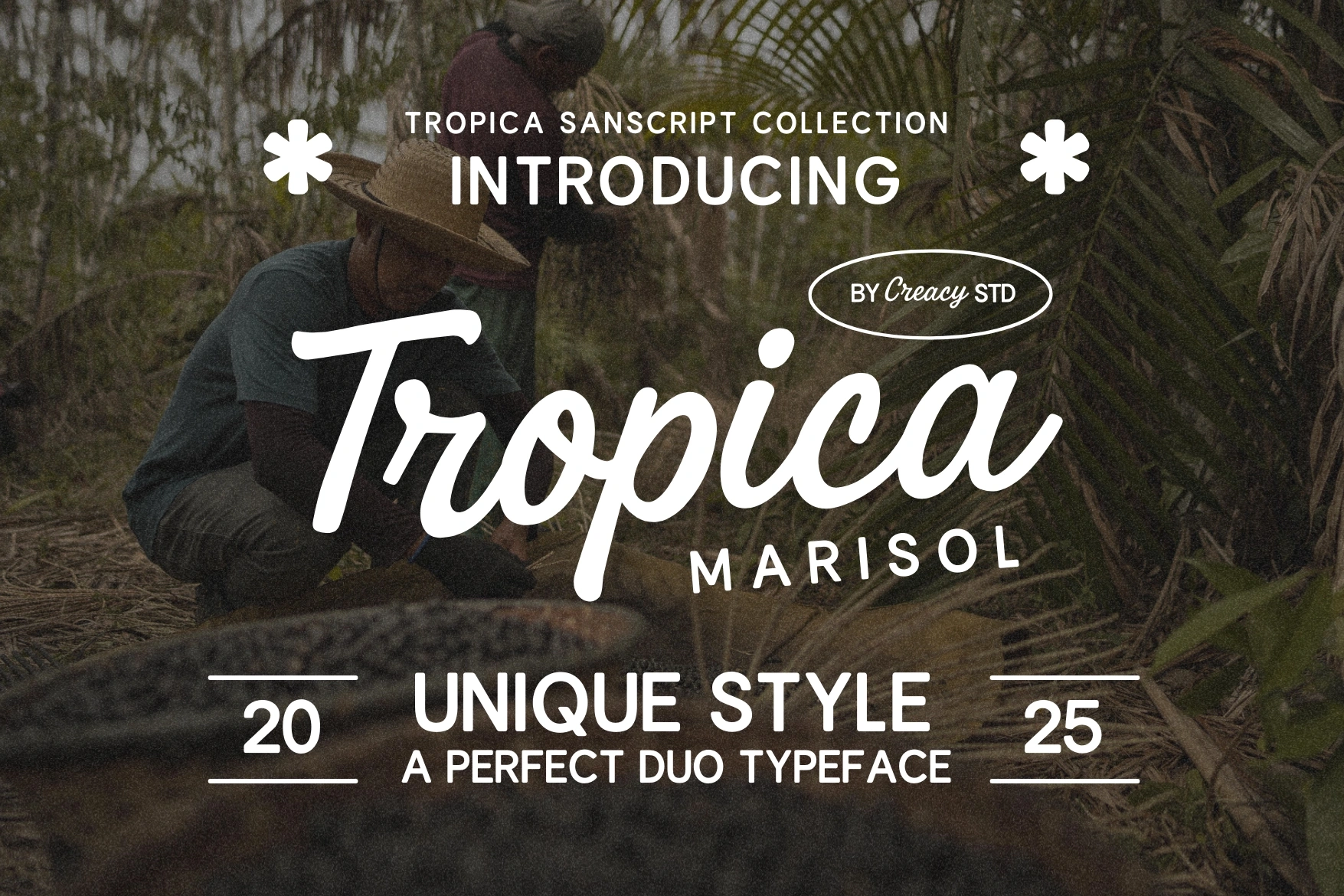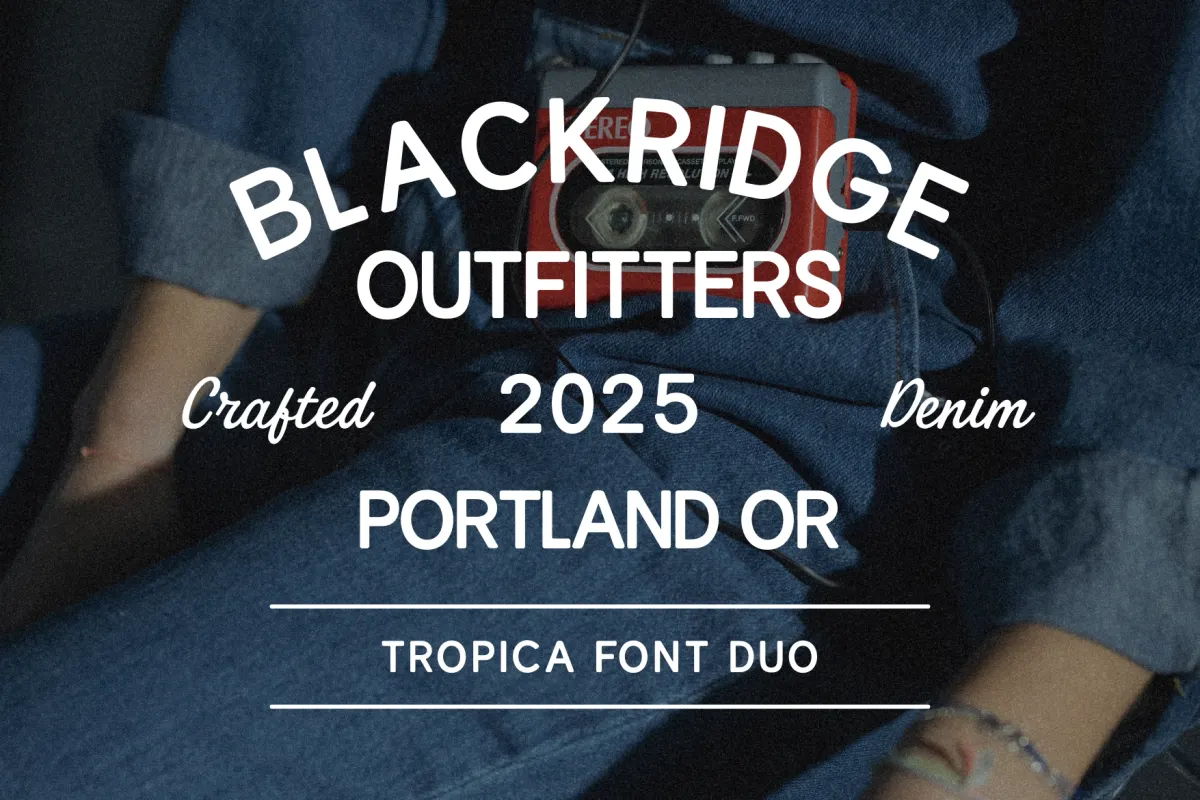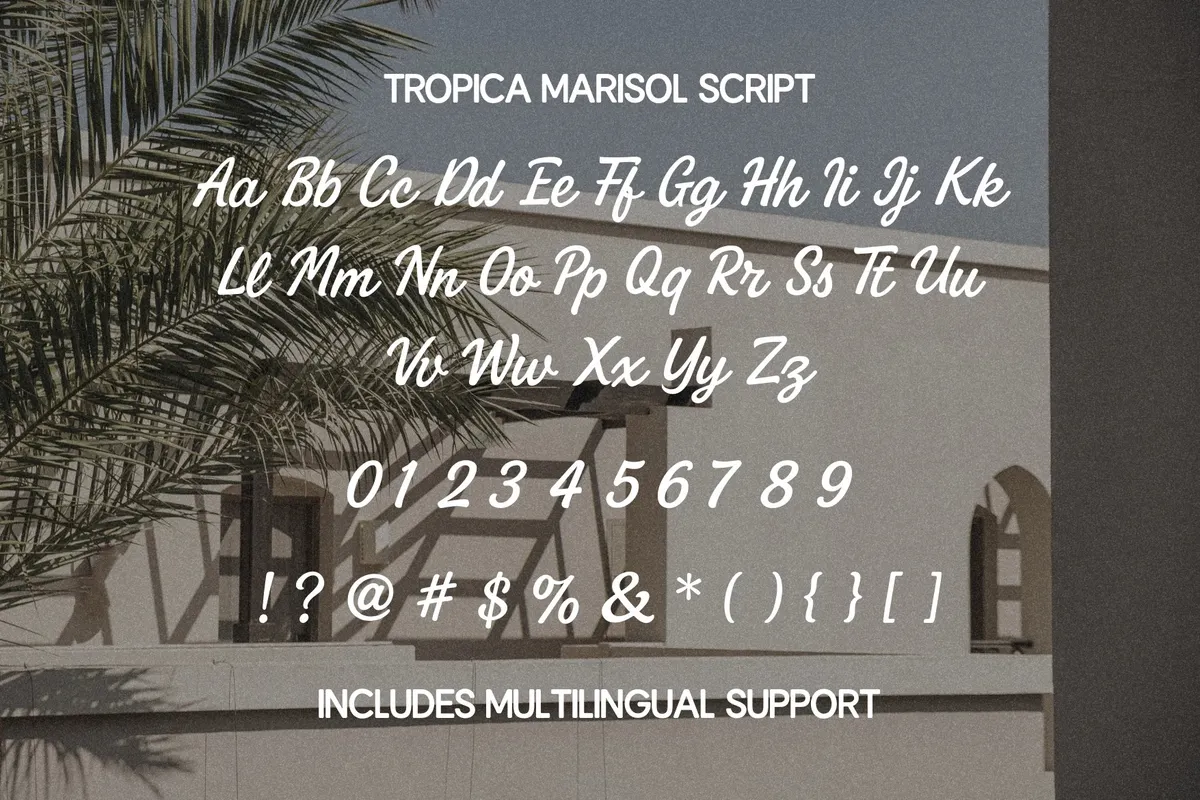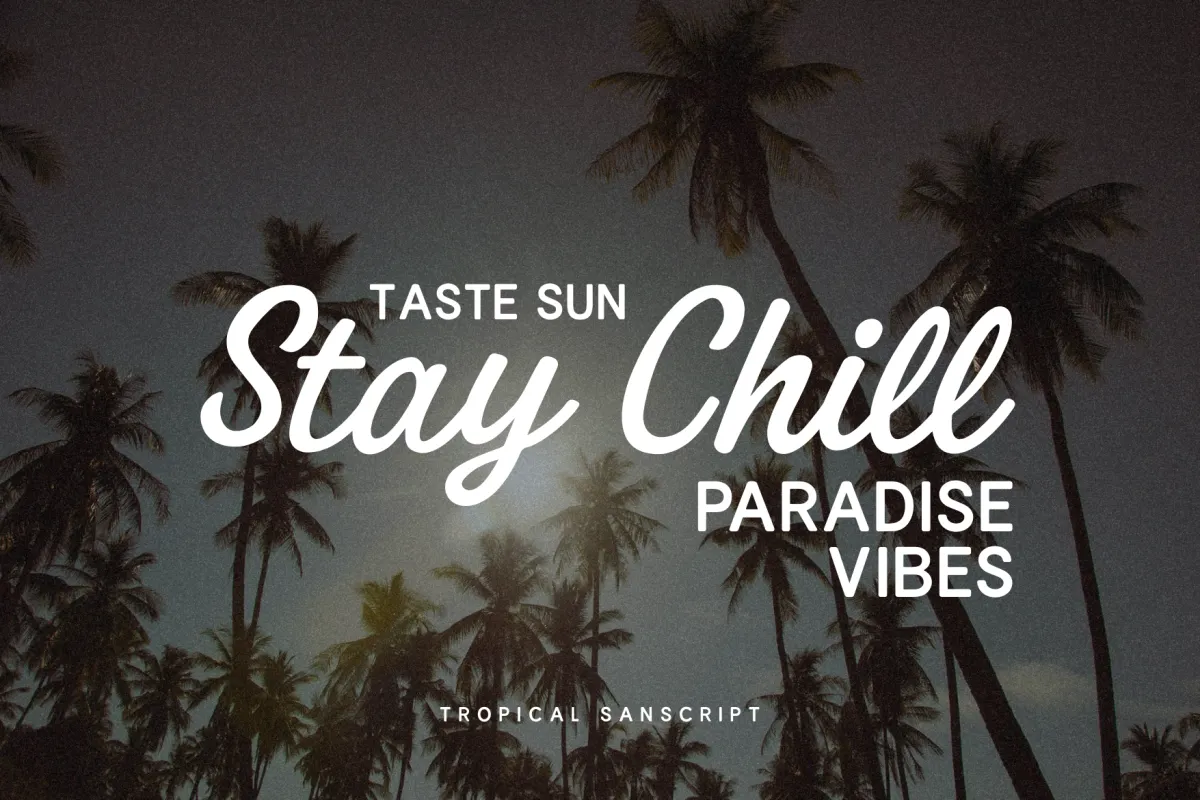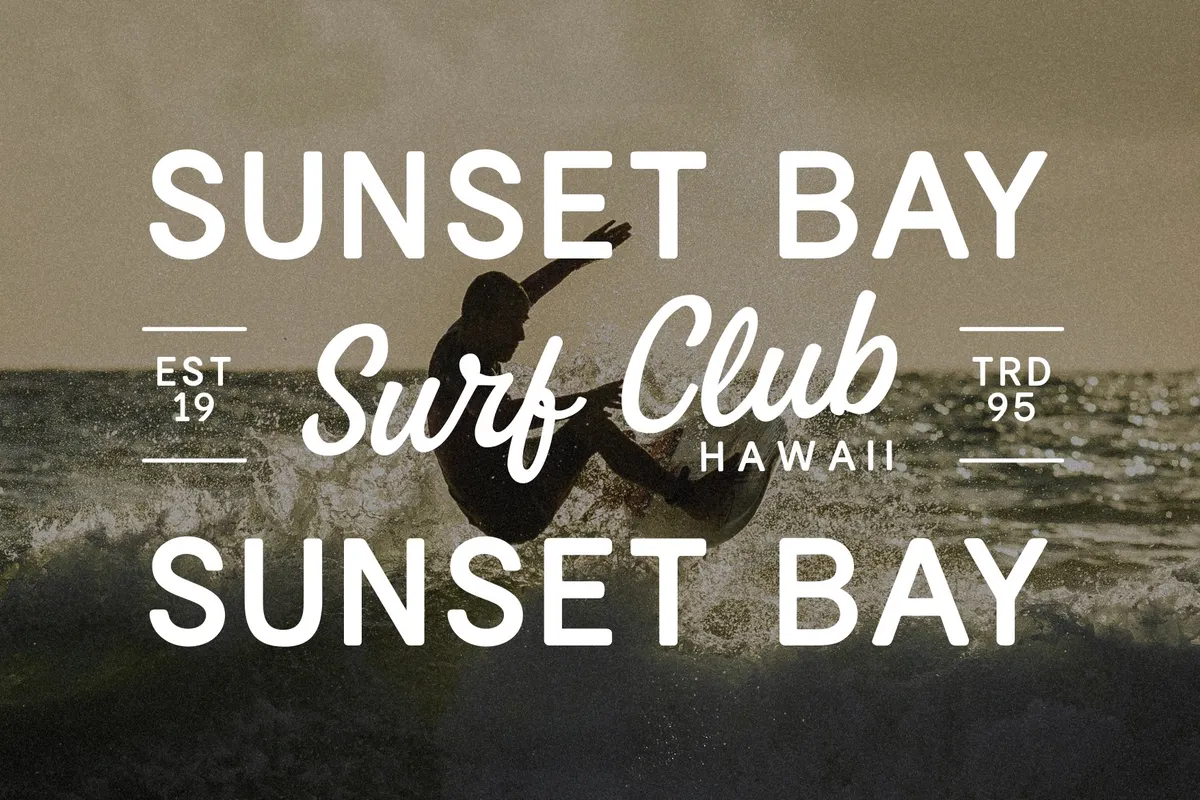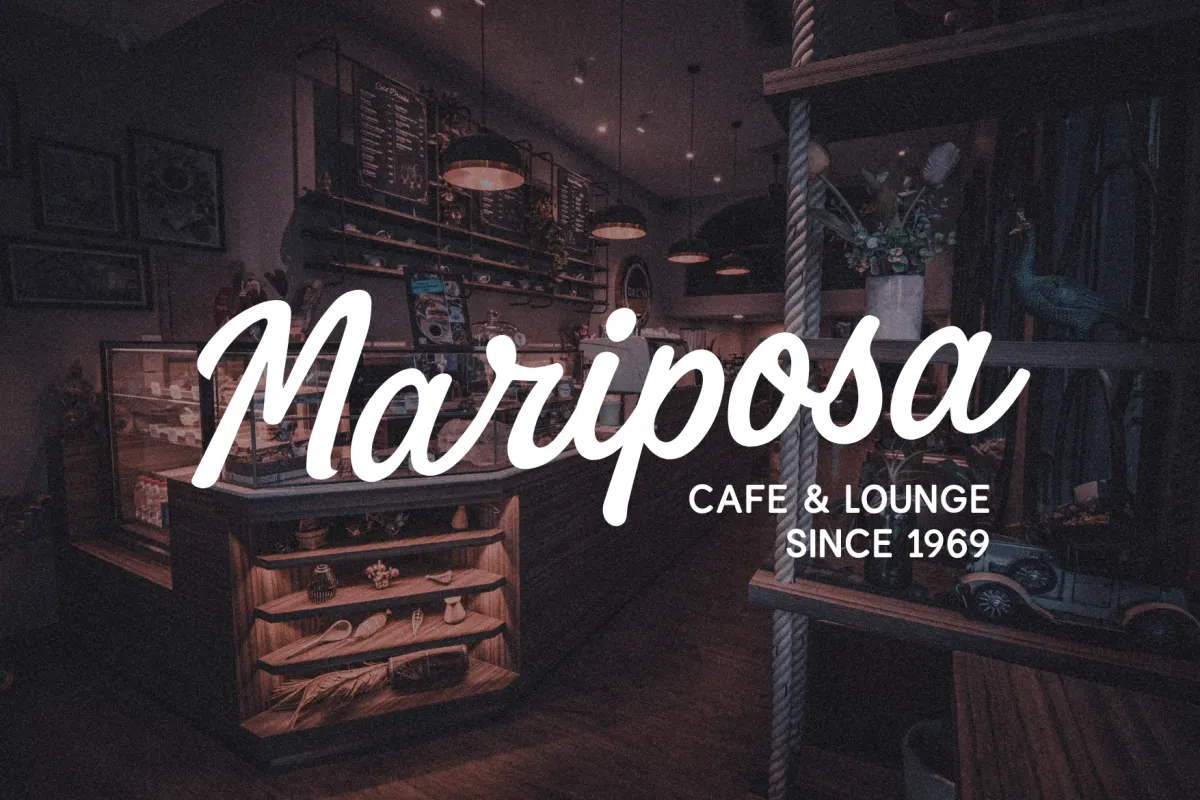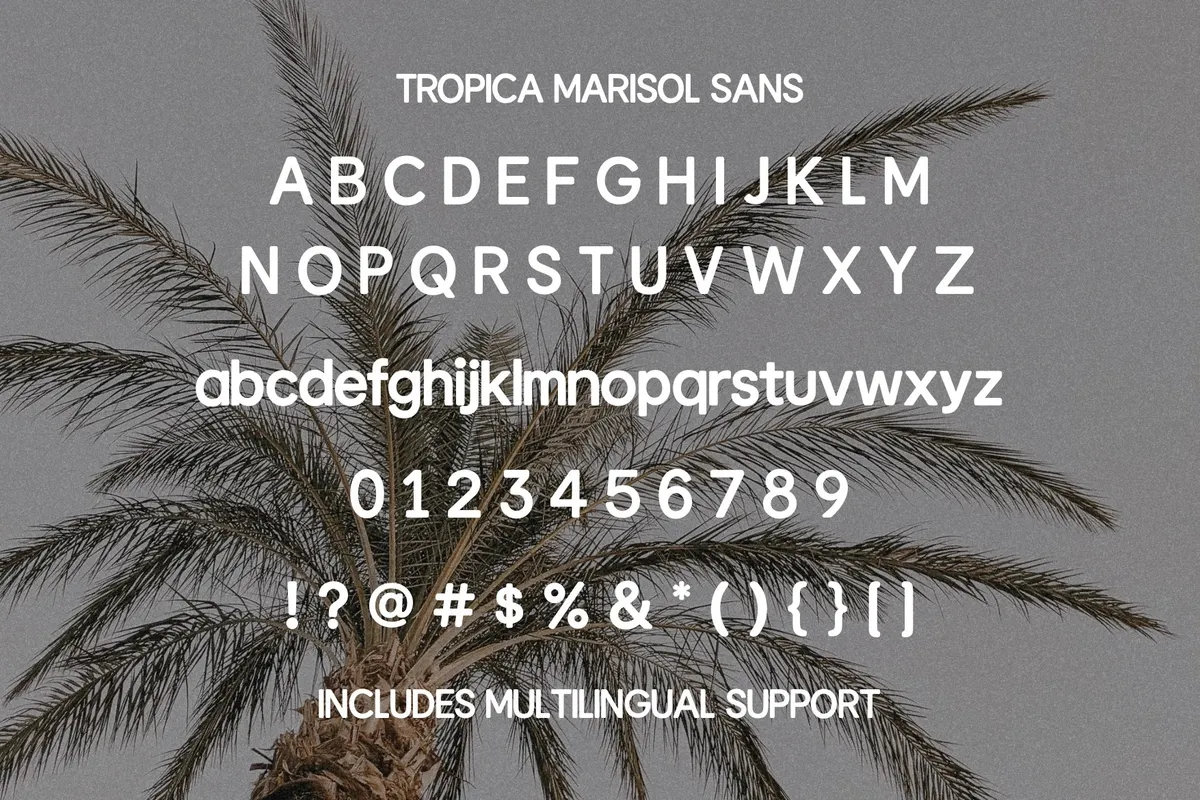
Tropica Marisol – Duo Typeface
Step into a sunlit escape with Tropica Marisol, a Duo Typeface inspired by tropical days, warm breezes, and timeless coastal beauty.
This duo combines a smooth handwritten script and a modern sans-serif , giving your design the perfect mix of elegance and relaxed island charm.
From beach cafés to travel brands, Tropica Marisol evokes that effortless summer feeling — stylish, organic, and endlessly versatile.
• Tropica Marisol Script (handwritten style)
• Tropica Marisol Sans (clean all-caps companion)
• Uppercase & lowercase
• Numerals & punctuation
• Ligatures & alternates for natural flow
Perfect For
• Coastal & lifestyle branding
• Travel and resort logos
• Summer packaging & editorial
• Boutique design projects
• Instagram and social media aesthetics
Bring sunshine, serenity, and sophistication to your visuals with Tropica Marisol — your tropical muse in type form.